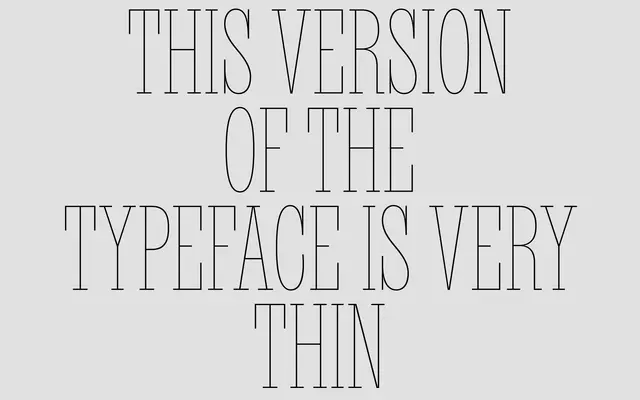
Ny. Slab
A2-Type · Henrik Kubel · 2015
A nine-weight slab serif drawn by Henrik Kubel as part of the custom type system created for the 2015 redesign of The New York Times Magazine.
Part of the broader Ny. family, this slab serif takes its formal cues from Mazarin, the Garamond-like metal typeface from Stephenson Blake, filtered through the sharpness and contrast of The New York Times Magazine's Gothic Blackletter logotype. Nine weights run from Thin to Black, giving the family considerable range across editorial hierarchies. The name references both New York, where the fonts were first deployed, and the Danish word for 'new', a nod to principal designer Henrik Kubel's origins.
Ny. Slab is an upright slab serif designed as part of a wider type system rooted in the Garamond-like Mazarin metal typeface, with sharpness and contrast drawn from Gothic Blackletter tradition, placing it firmly in the slab category with editorial refinement.